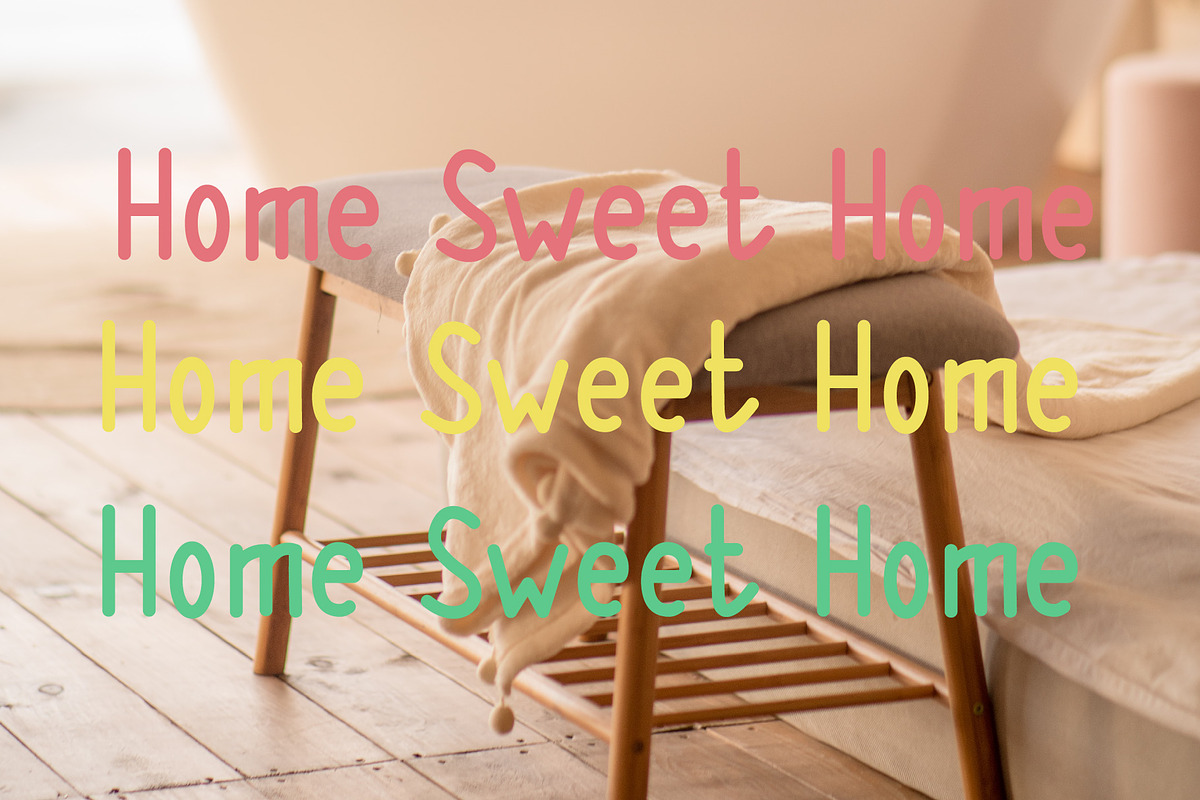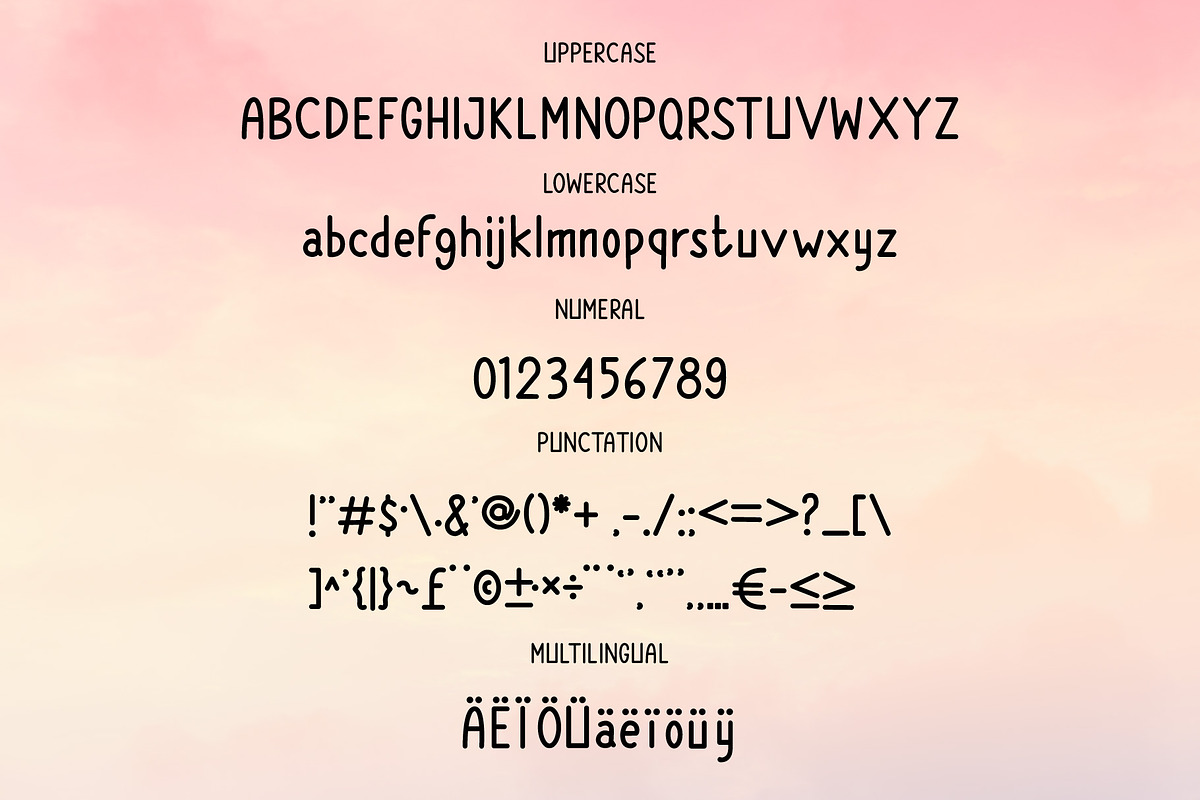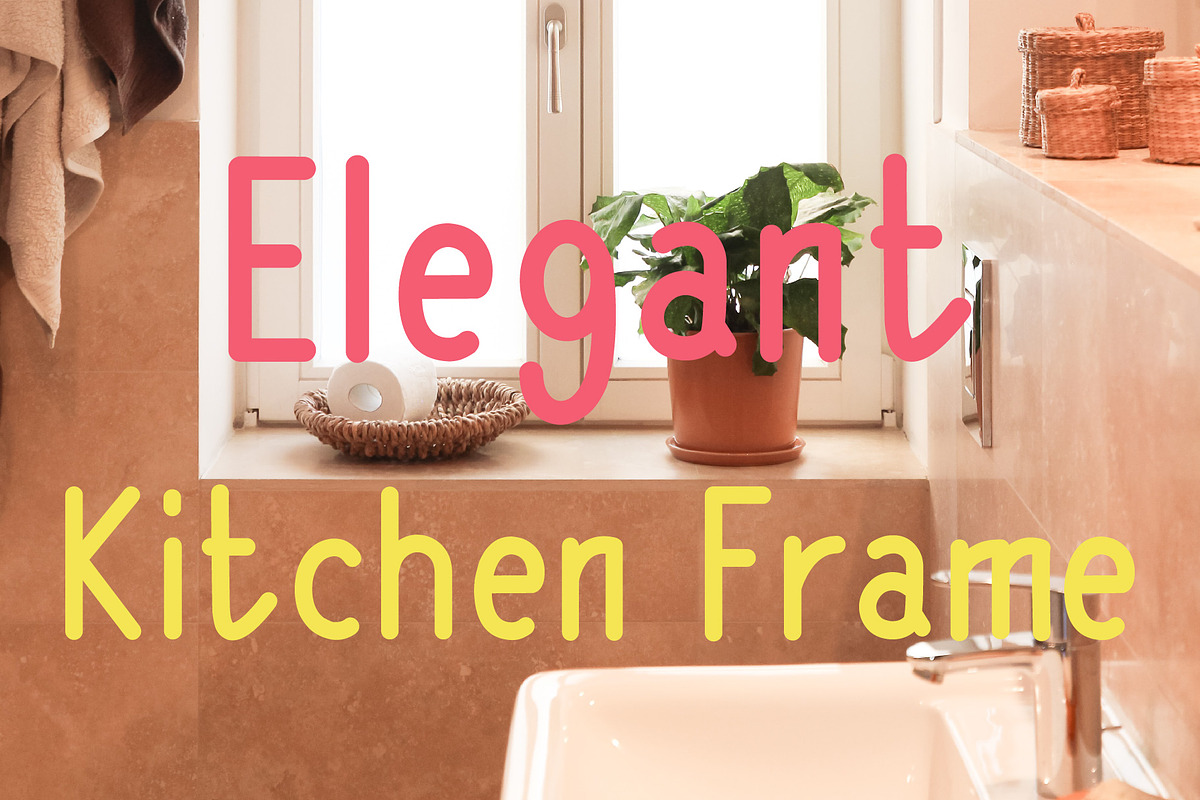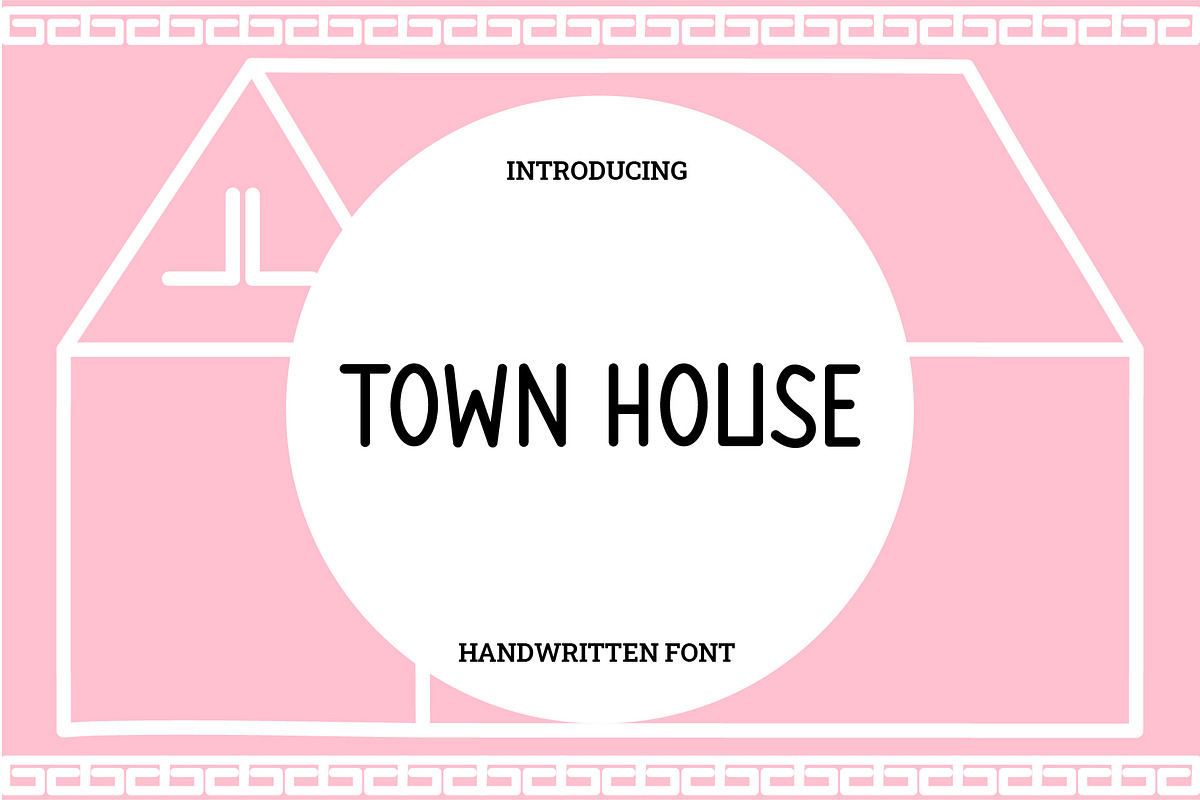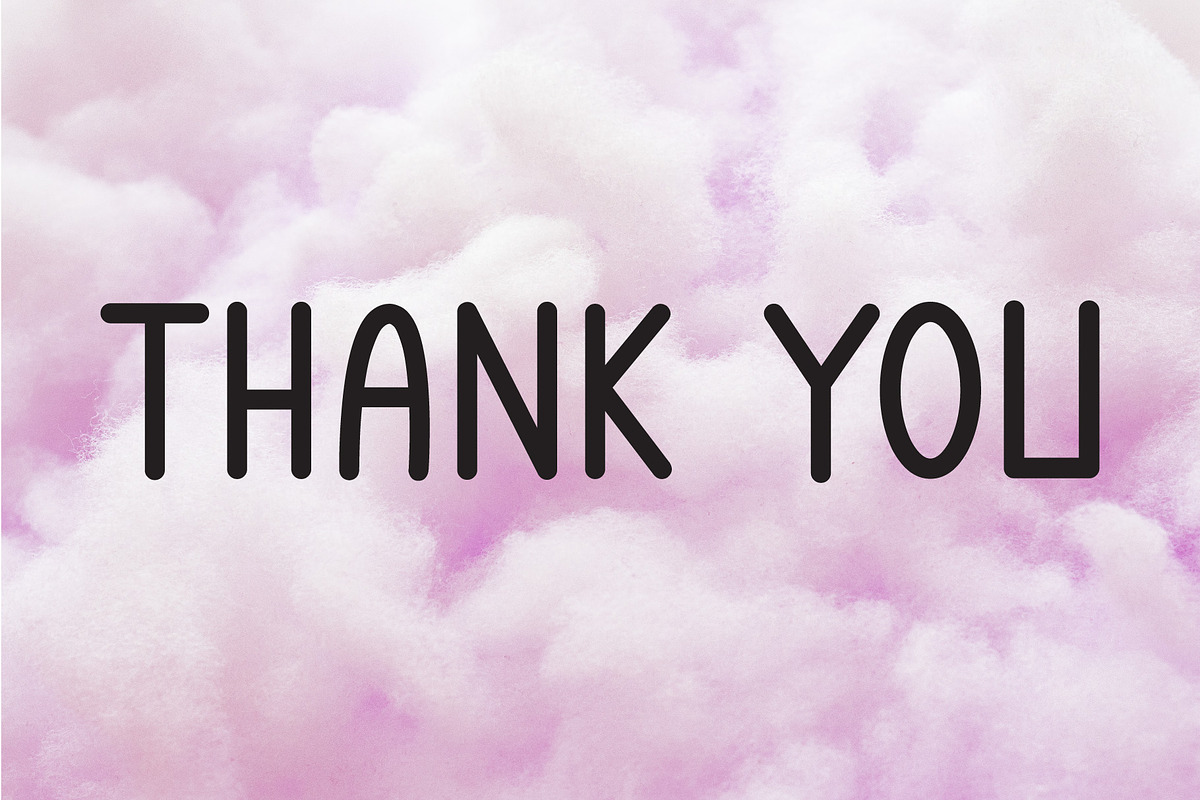
Town House
Town House is a type of handwriting that is made with standard characters in general but is packaged more attractively and different from the others in general, it can be used on a home decor board or others according to your needs.